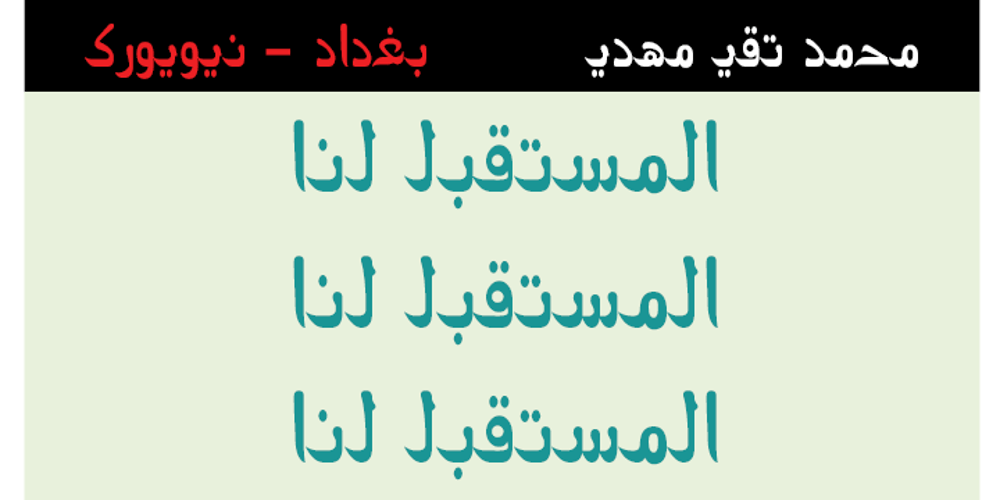
Mehdi Mutamathil
Mehdi Mutamathil font
Mehdi Mutamathil Font Family was designed by Saad D. Abulhab and published by Arabetics. Mehdi Mutamathil contains 2 styles and family package options. The Mehdi Mutamathil type family follows the guidelines of the Mutamathil type style. It has only one glyph for every basic Arabic Unicode character or letter. The Mehdi Mutamathil family includes all required Lam-Alif ligatures and selected marks positioning so it does use limited glyph substitutions or forming. Mehdi Mutamathil employs variable x-height values. Text strings composed using typefaces of this family are non-cursive with stand-alone isolated glyphs. The Mehdi Mutamathil family includes both Arabic and Arabic-Indic numerals, all required diacritic marks, Allah ligature, in addition to all standard English keyboard punctuations and major currency symbols. The fonts in this family support the following scripts: Arabic, Persian, Urdu, Pashtu, Kurdish, Baluchi, Kashmiri, Kazakh, Sindhi, Uyghur, Turkic, and all extended Arabic scripts.